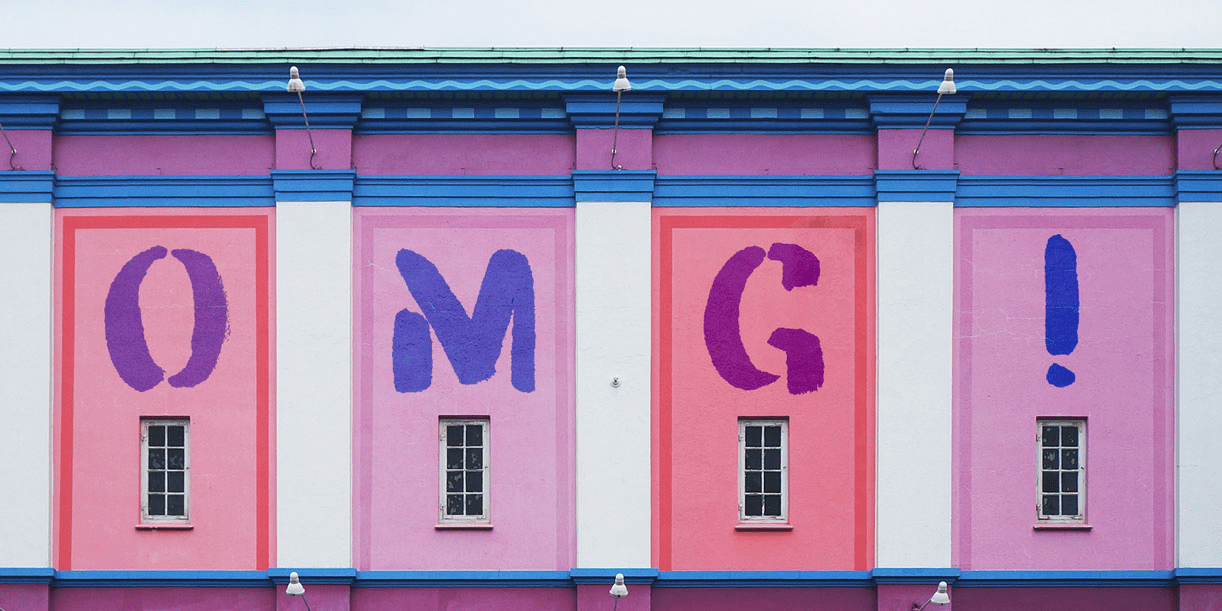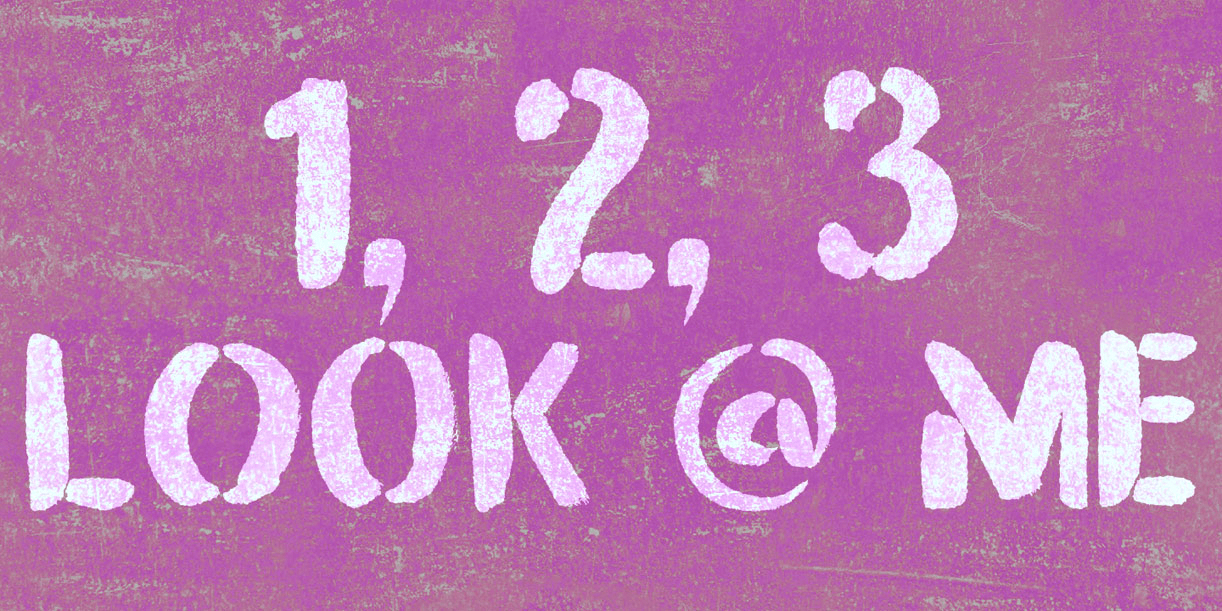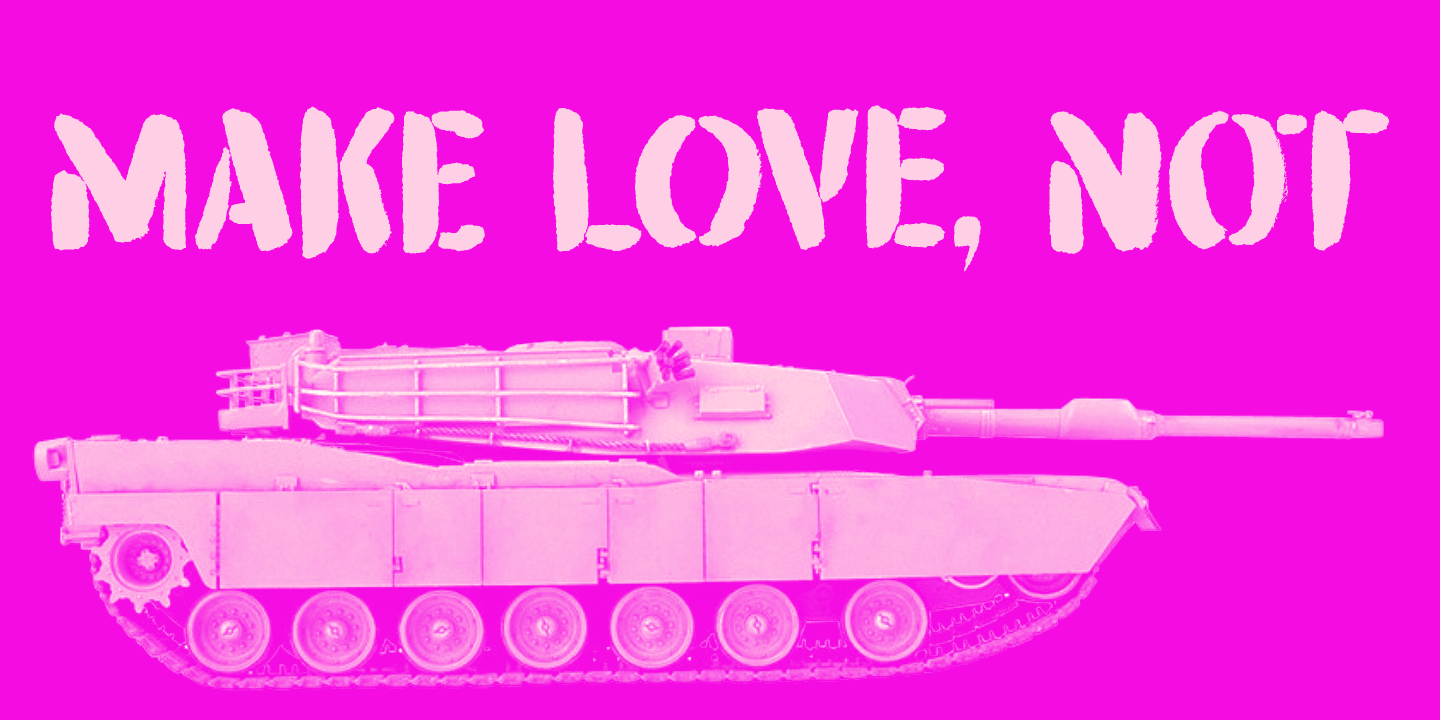
About Attention Seeker
Attention Seeker does seek attention: it looks like a stencil font, and it sort of is, but it wasn\’t made with stencils. It was made with a brush and ink on paper – just like that! Use Attention Seeker for your revolutionary posters, your books, your…